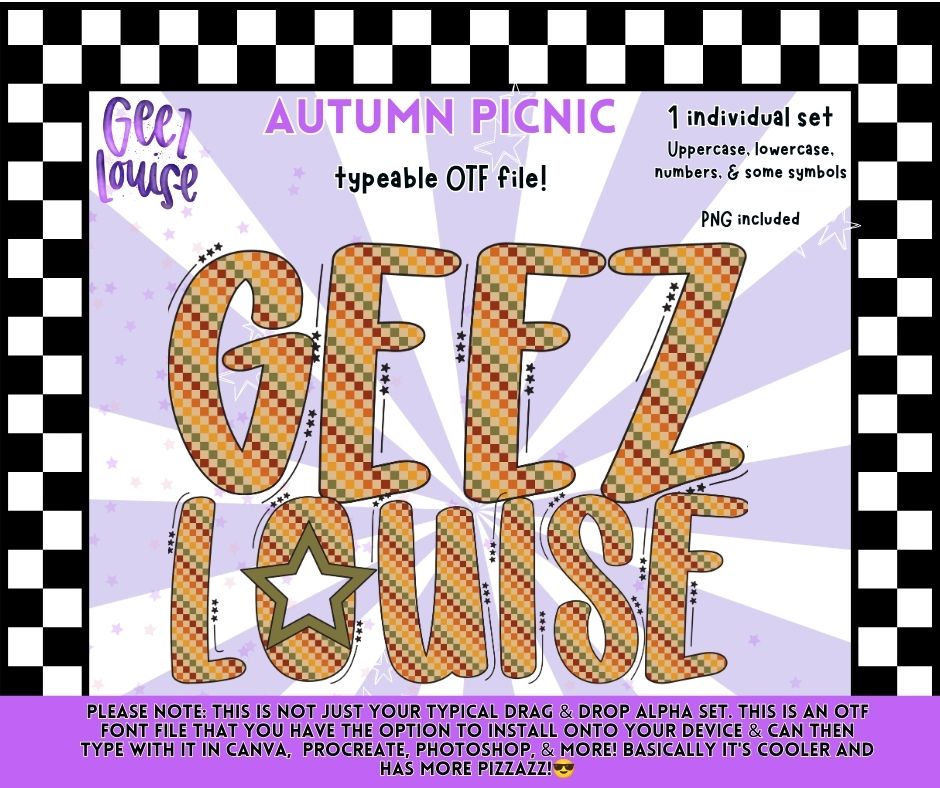
Autumn Picnic Alpha Font OTF | Fall Gingham Alphabet PNG | Typeable Font | Autumn Font
🍂🧺 Celebrate sweater weather with Autumn Picnic Alpha! This cozy typeable font features a warm fall-inspired gingham pattern in rich autumn tones, making it perfect for Thanksgiving designs, pumpkin patch graphics, farmhouse décor, boutique apparel, and all your favorite fall creations.
Perfect For:
🍁 Fall Apparel
🦃 Thanksgiving Designs
🎃 Pumpkin Patch Graphics
🧺 Cozy Autumn Projects
👕 T-Shirts & Sweatshirts
✨ Sublimation Designs
🎨 Stickers & Decals
🛍️ Boutique Products